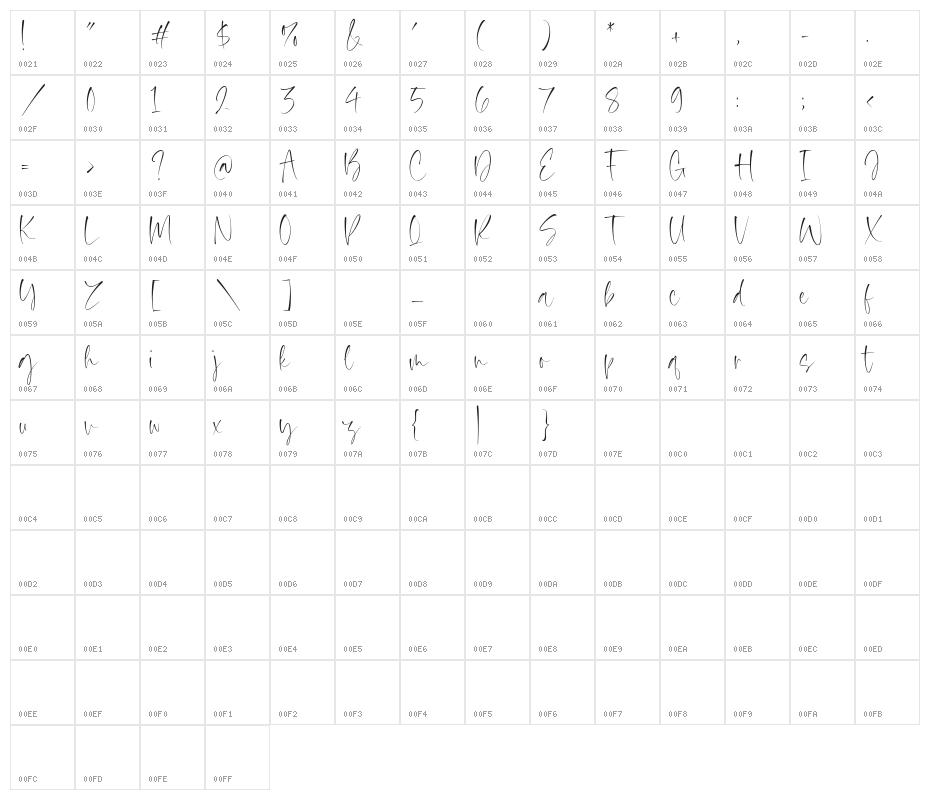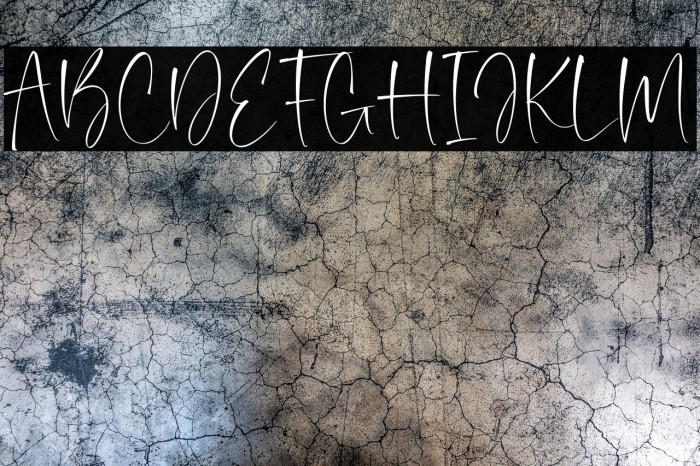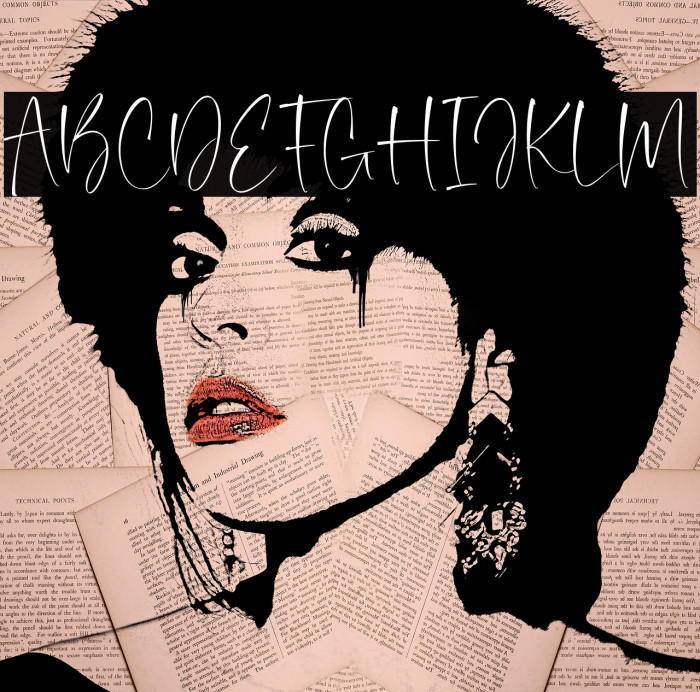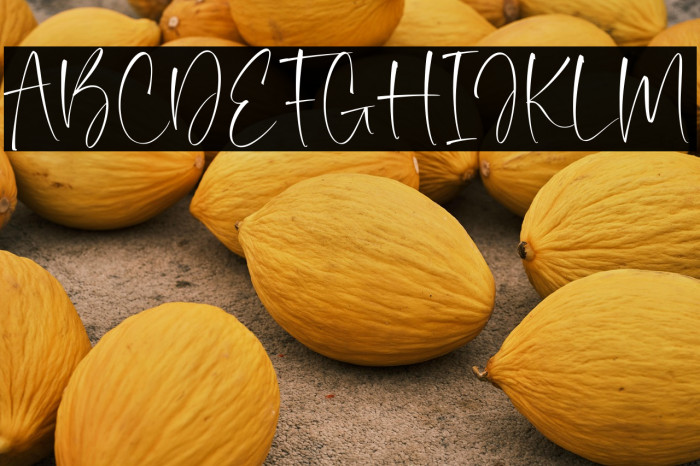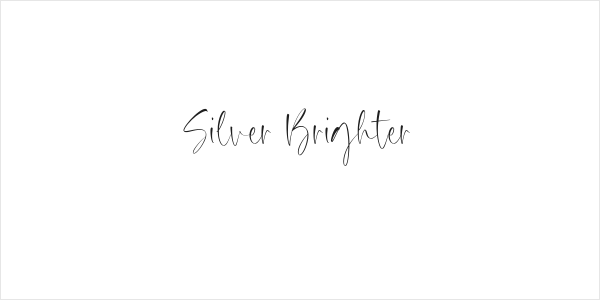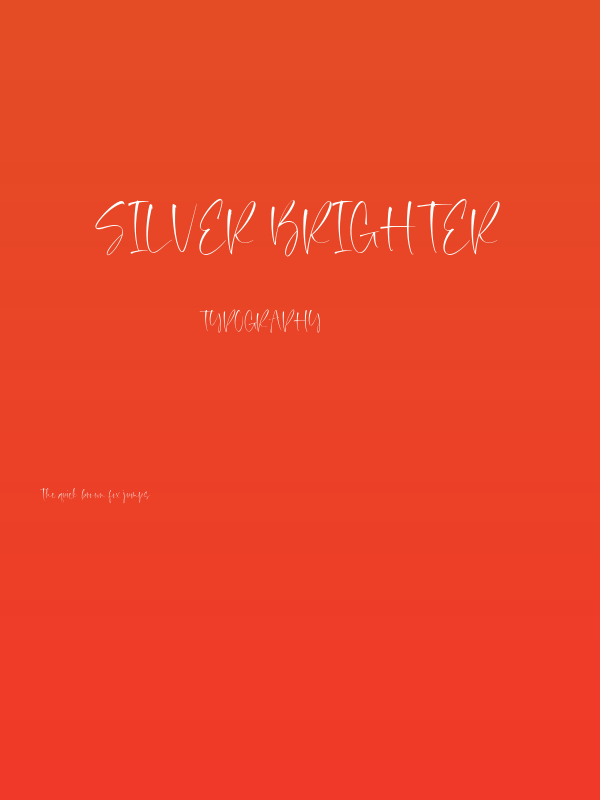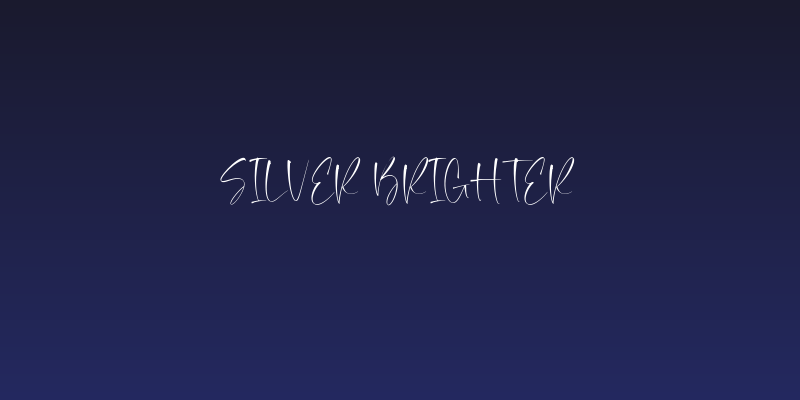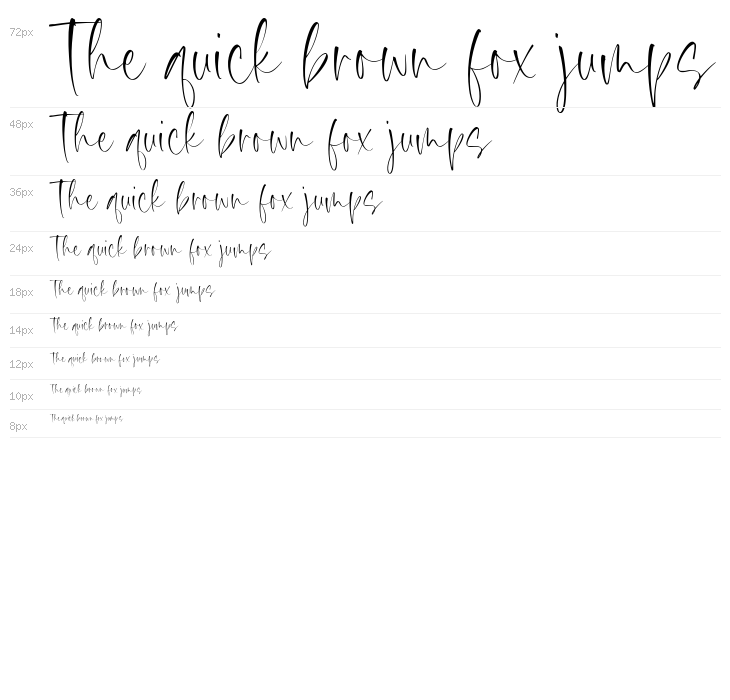
Silver Brighter Font
Silver Brighter Description
A delicate, handwritten script font with tall, narrow letterforms and fluid, organic strokes. The lines are thin and slightly irregular, giving a lively, personal touch. The characters have a high ascender-to-descender ratio and generous spacing, contributing to an airy, elegant appearance.
| Overall Style | Decorative, Elegant, Modern |
| Use Case | Logos, Headlines, Invitations, Decorative text |
| Proposed Projects | Wedding invitations, personal branding, greeting cards, social media graphics, event posters. |